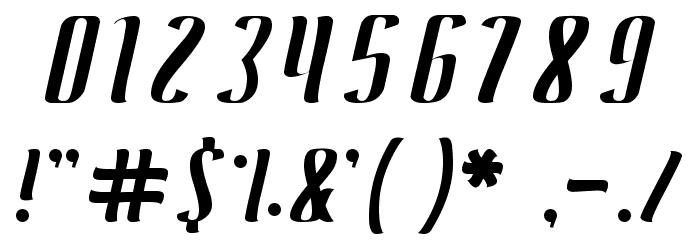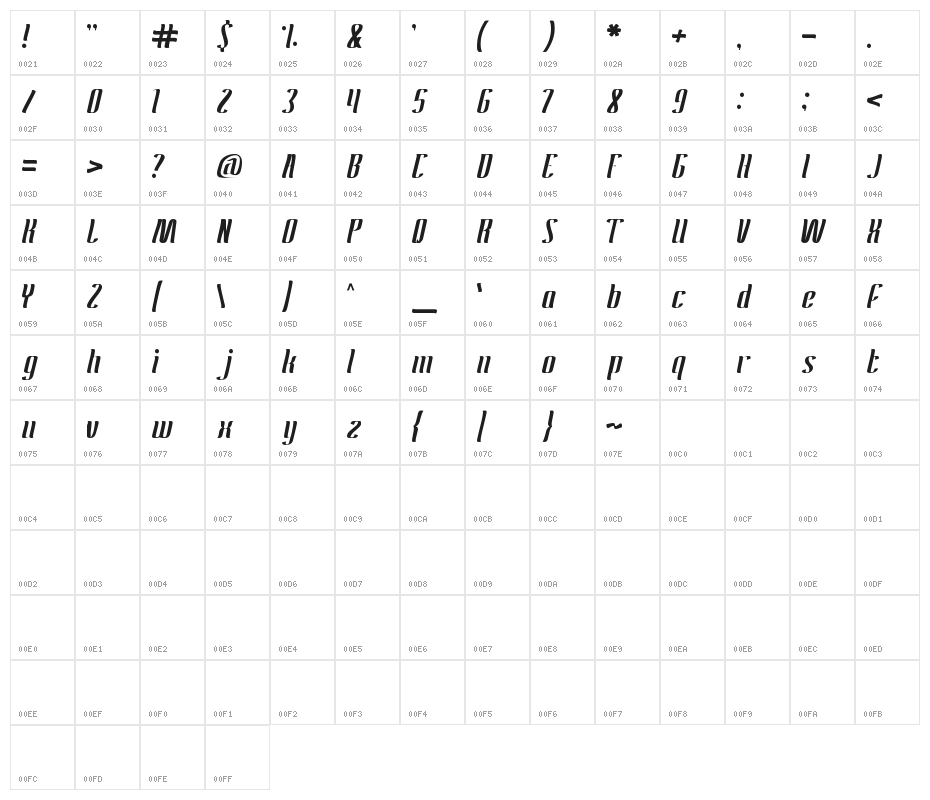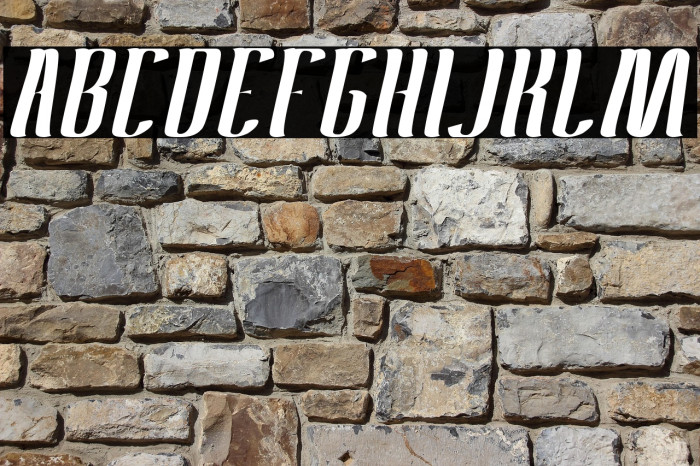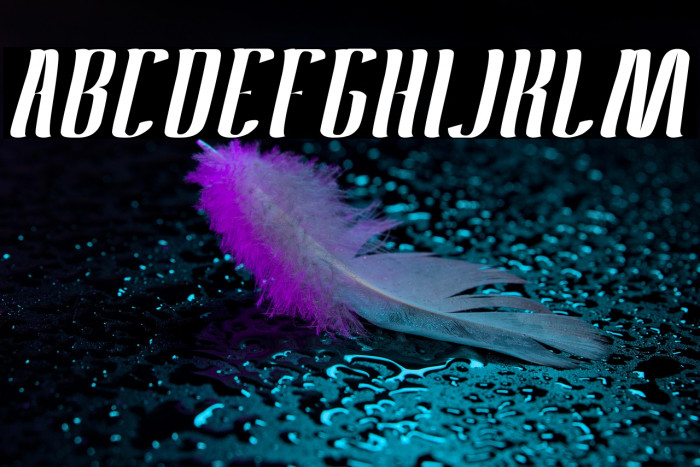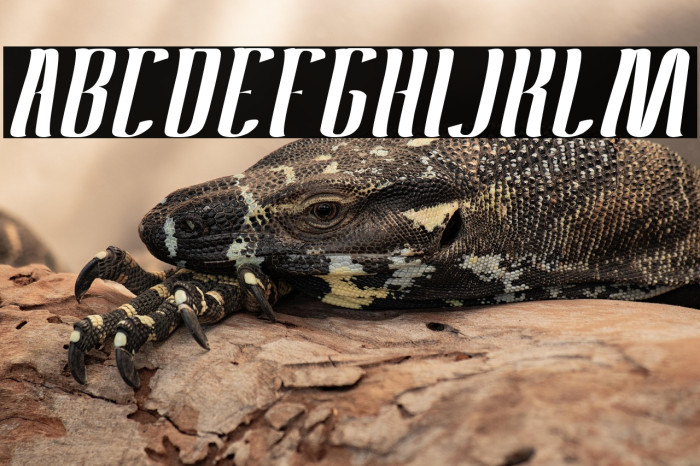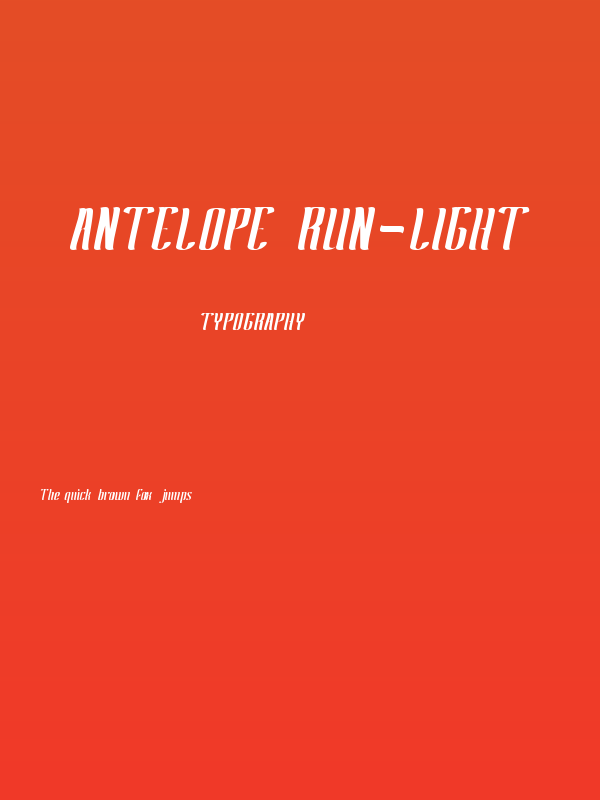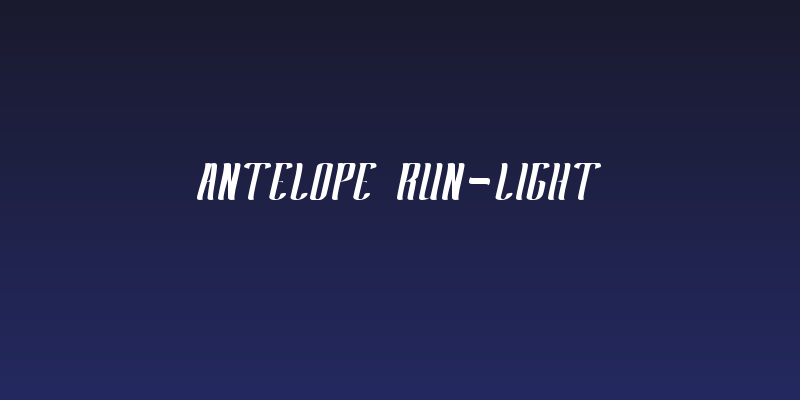
Antelope Run-Light Font
Antelope Run-Light Description
This font features a dynamic and energetic style, characterized by its slanted, italicized letterforms that convey a sense of movement and speed. The strokes are smooth and fluid, with a moderate contrast between thick and thin lines, giving it a sleek and modern appearance. The uppercase letters are bold and assertive, while the lowercase letters maintain a consistent flow, enhancing readability. The numerals and special characters are designed to complement the overall aesthetic, making it versatile for various design applications.
Proposed ProjectsIdeal for sports branding, dynamic posters, modern advertisements, and energetic logo designs.